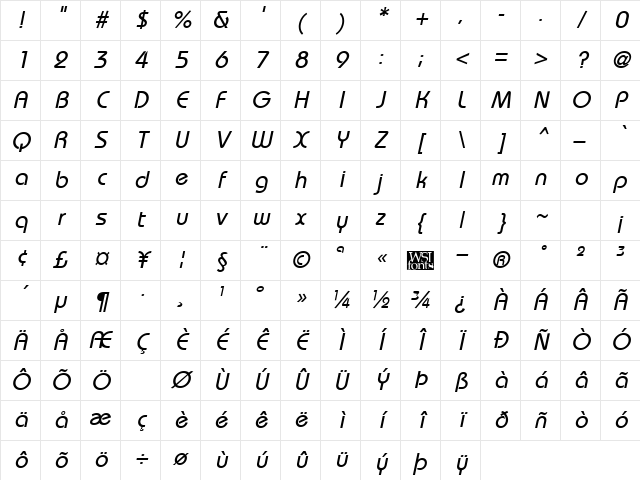
BordeauxMedium Italic
BordeauxMedium Italic Family
Design Context for BordeauxMedium
BordeauxMedium is a composed and adaptable typeface that performs quietly and consistently across a wide range of design contexts. The slanted form adds forward momentum and visual energy.
Pro Tip: Use BordeauxMedium for emphasis, pull quotes, and subheadings where its slanted energy can add rhythm to the layout.